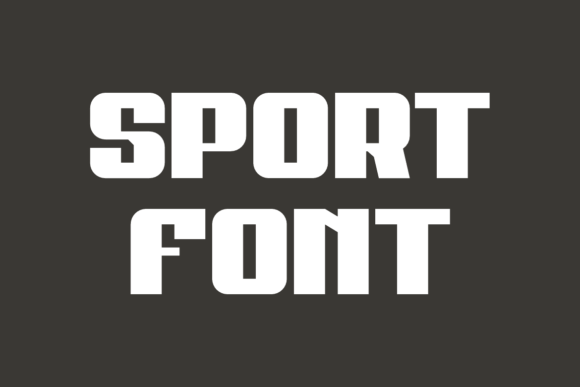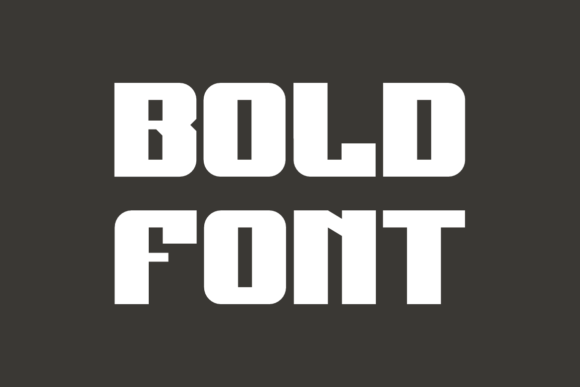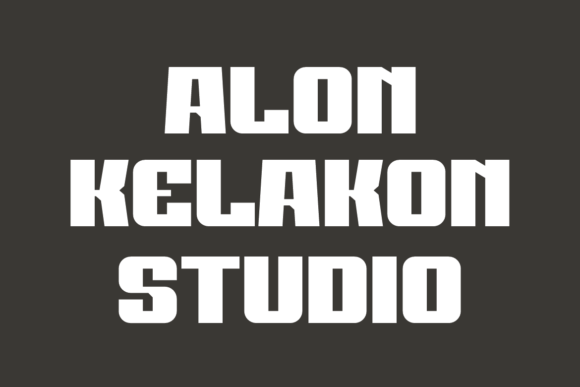
Introduction to Smart Clover Font
Have you ever stared at a blank canvas, eager to bring a creative project to life, only to be held back by the perfect font? We’ve all been there. The perfect font can be the difference between a mediocre design and a masterpiece. That’s where the Smart Clover Font comes in – a game-changing sans serif font that’s about to revolutionize your design library.
This high-quality font is more than just a design resource; it’s a key to unlocking your creative potential. With its bold and assertive style, the Smart Clover Font is the perfect companion for any project, whether you’re working on a graphic design, a logo, or even a social media graphic with a transparent background.
Key Features of Smart Clover Font
- High-quality design resource perfect for creative projects, offering a unique touch to any visual content.
- Transparent background, allowing for seamless integration with any image or design element.
- Optimized for high-resolution displays, with a minimum resolution of 300 DPI for crisp and clear text rendering.
- Smart Clover Font is available in a single weight, making it ideal for headings, titles, and other prominent text elements.
- Designed to be highly legible and versatile, making it suitable for a wide range of creative projects, from digital art to print materials.
Honest Review: Smart Clover Font
As a designer, I’m always on the lookout for high-quality design resources to enhance my creative projects. The Smart Clover Font caught my eye with its unique and modern aesthetic. I decided to give it a try and see how it performs.
- ✨ The font is highly customizable, allowing users to easily adjust the size, color, and style to suit their project’s needs.
- ✨ The transparent background option is a great feature, allowing designers to easily layer the font over images or other design elements.
- ⚠️ The Smart Clover Font is limited to a single weight, which may not be suitable for designers who need a range of weights for their project.
- ⚠️ The font’s unique aesthetic may not be suitable for all design styles or projects, so be sure to test it before committing.
Overall, I’m impressed with the Smart Clover Font’s high quality and versatility. While it may have some limitations, it’s a great resource for designers who are looking for a modern and unique font for their creative projects. With a free download option, it’s definitely worth checking out.
How to Use Smart Clover Font
The Smart Clover Font is a high-quality, versatile font perfect for creative projects. It features a transparent background, making it ideal for designers who need a design resource that can be easily customized.
Tips for Getting the Most Out of the Smart Clover Font
To get the most out of the Smart Clover Font, use it in combination with a solid background or image to create a visually appealing design. Experiment with different font sizes and styles to add depth and interest to your project.
The Smart Clover Font is ideal for a variety of creative projects, including logos, business cards, and social media graphics. Its high-quality design and transparent background make it perfect for designers who need a versatile font that can be easily customized.